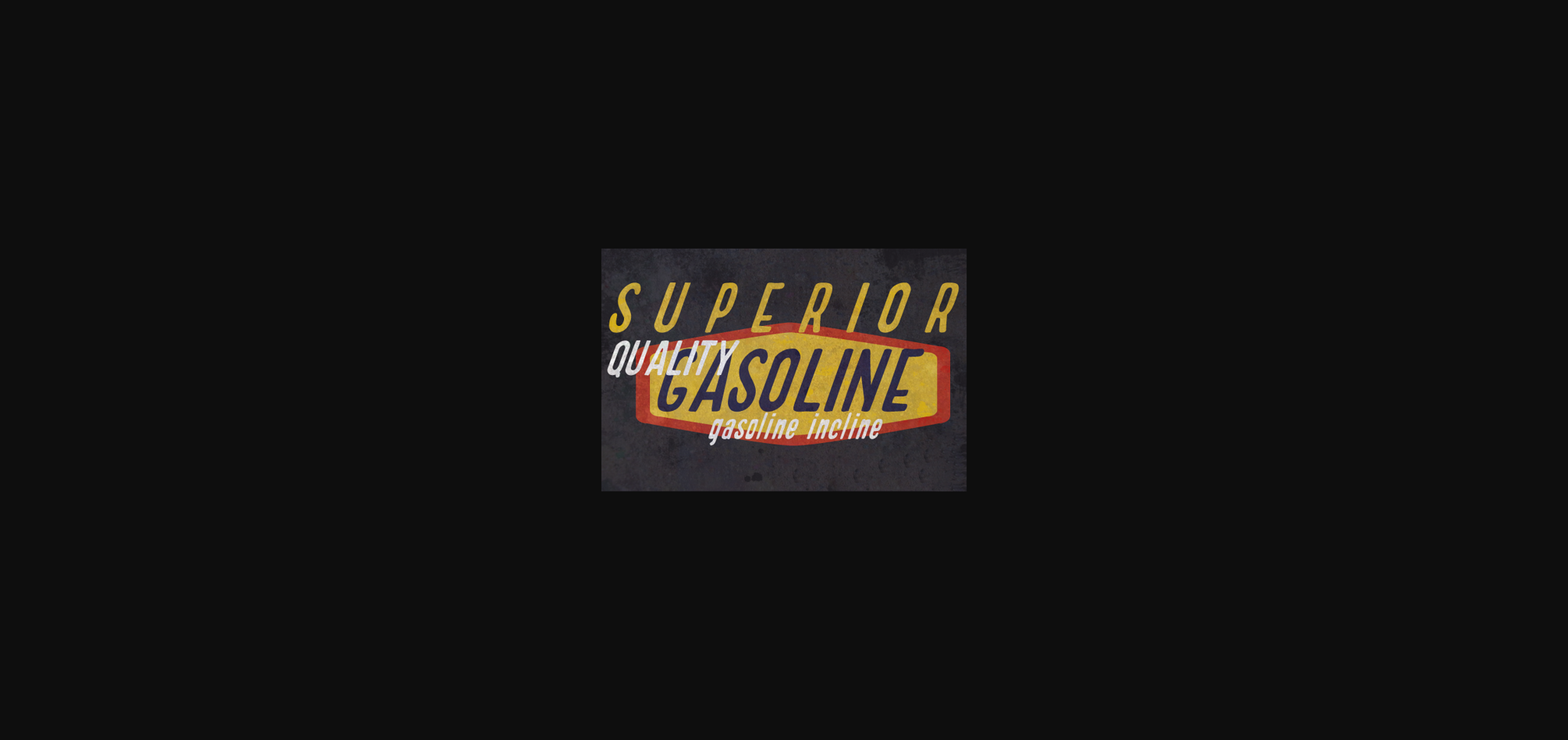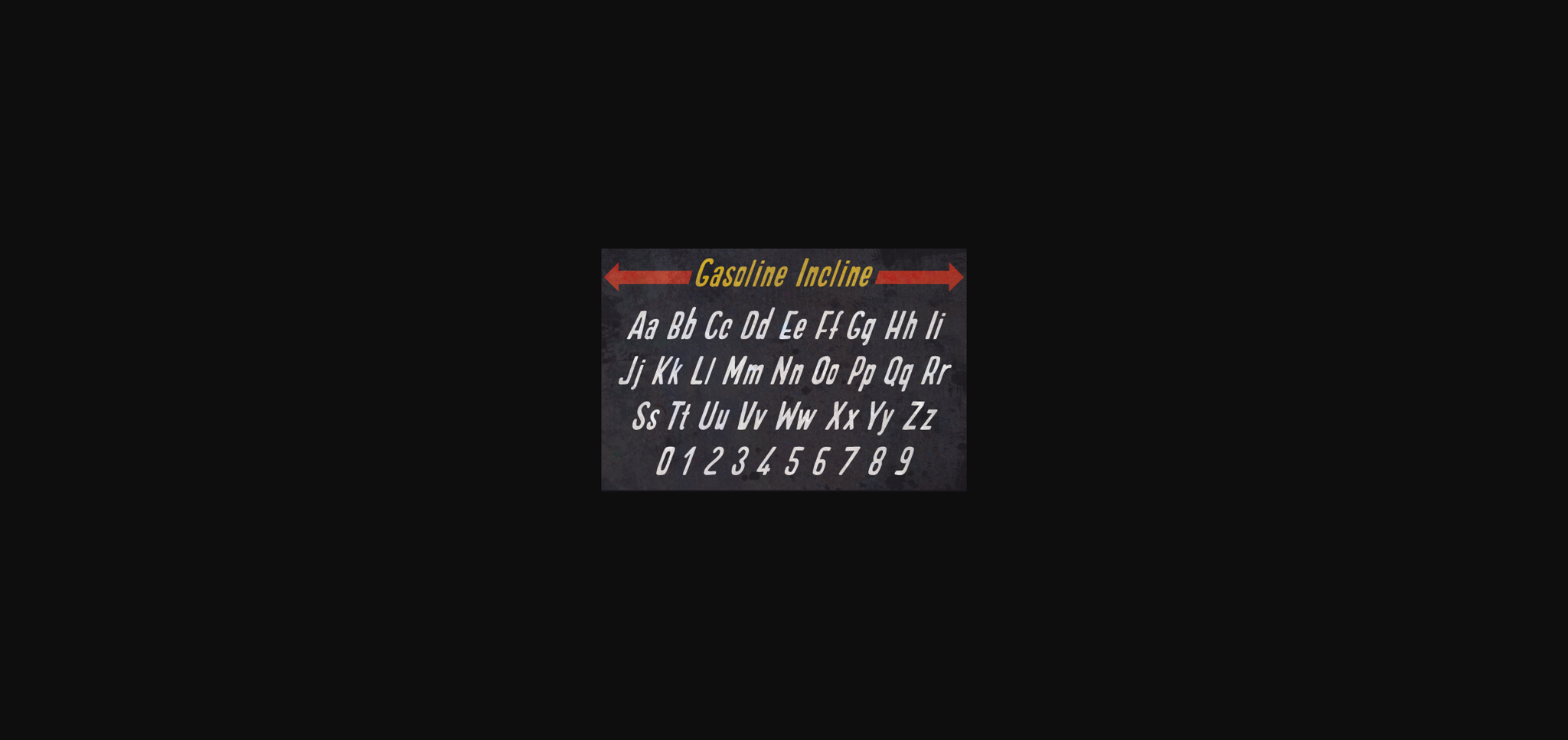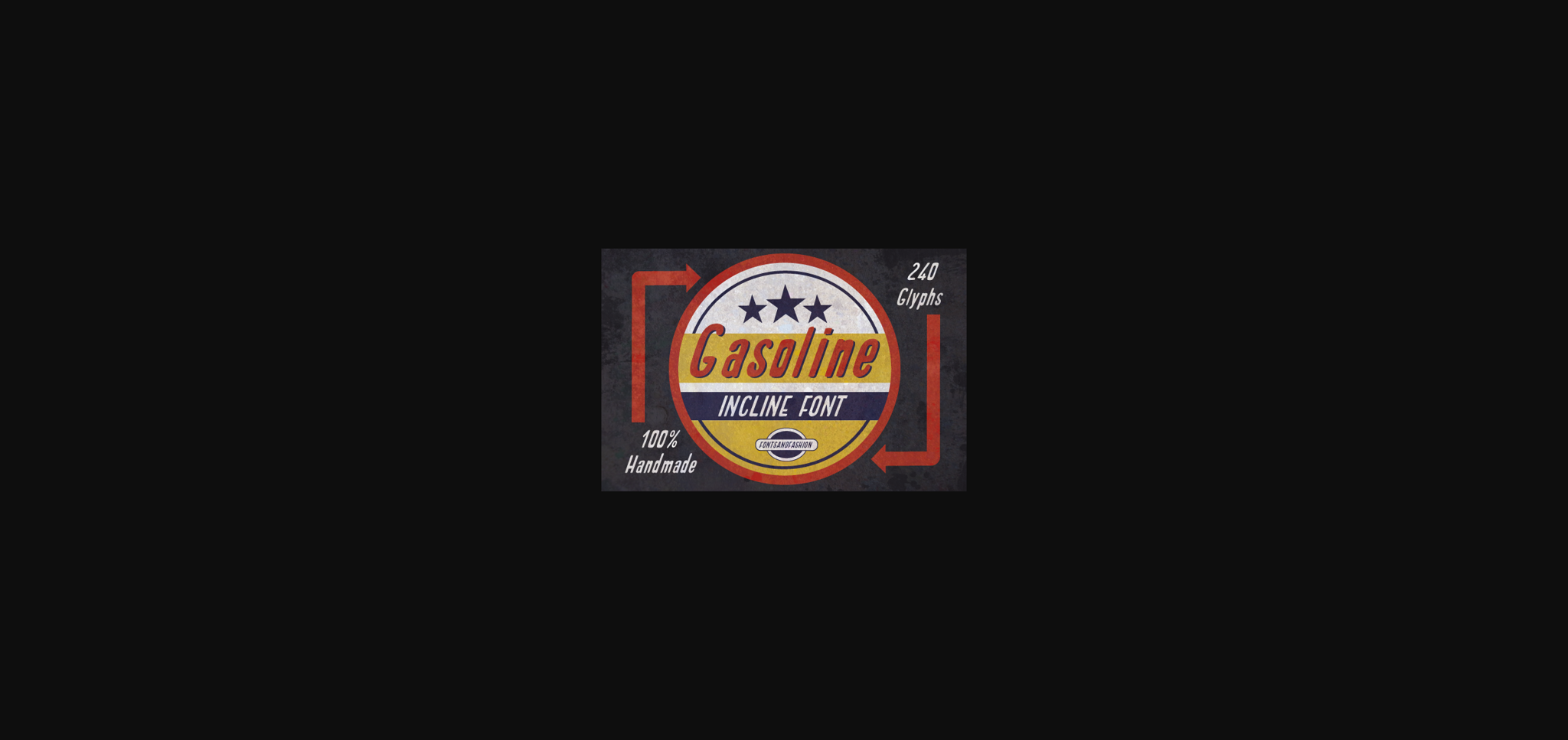
About Gasoline Incline Font
“Gasoline Incline” comes from the 1950s/1960s inspiration, it takes from the advertising style of that period.
This font features a look of stylish vintage handmade, simple and essential.
“Gasoline Incline” is perfect for home decoration crafts, posters, product packaging, product designs, label, logo, social media posts, quote, advertisements, invitations, stationery, t-shirt, fabric bag, cover book, and any type of creative projects you can imagine.
This font features a look of stylish vintage handmade, simple and essential.
“Gasoline Incline” is perfect for home decoration crafts, posters, product packaging, product designs, label, logo, social media posts, quote, advertisements, invitations, stationery, t-shirt, fabric bag, cover book, and any type of creative projects you can imagine.